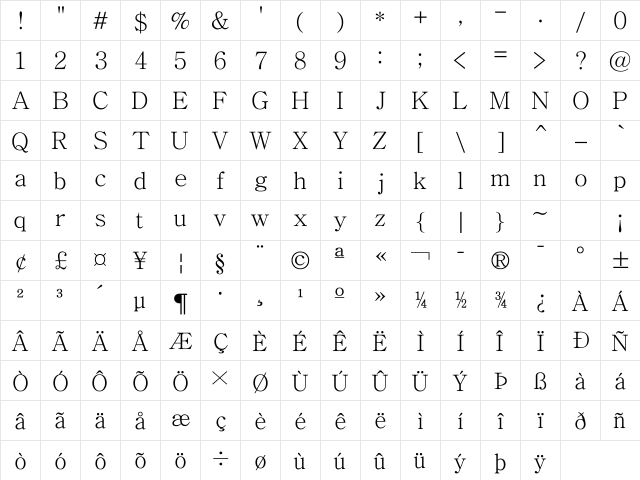
Chrysanthi Unicode Regular
Design Context for Chrysanthi Unicode Typeface
Chrysanthi Unicode brings the precise, column-aligned rhythm of monospaced typography to designs that value technical clarity and systematic order.